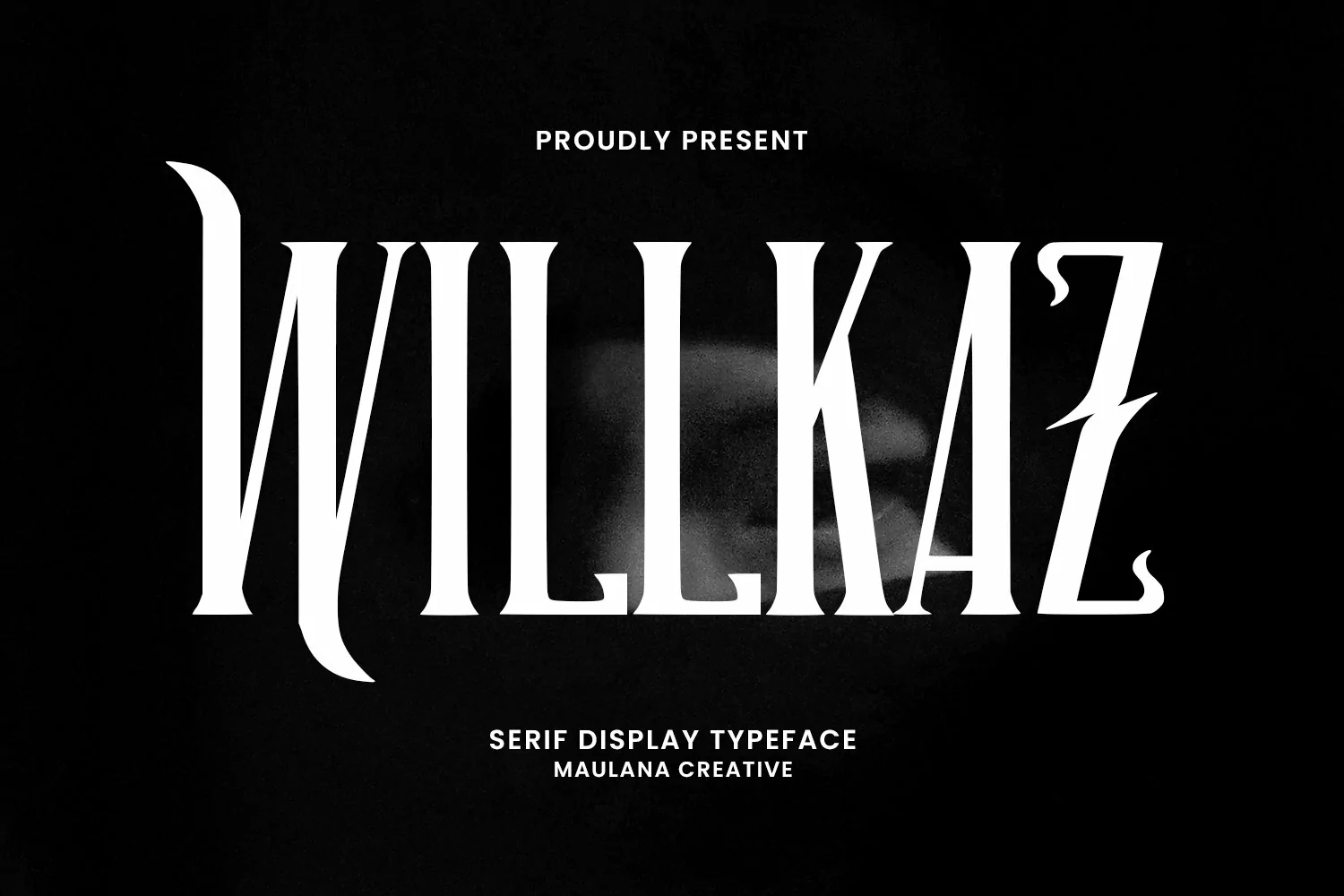
Willkaz serif display decorative typeface font. Bold stroke, fun character with a bit of ligatures and alternates. To give you an extra creative work. Willkaz typeface display font support multilingual more than 100+ language. This font is good for logo design, Social media, Movie Titles, Books Titles, a short text even a long text letter and good for your secondary text font with script or serif. Make a stunning work with Willkaz typeface display font.